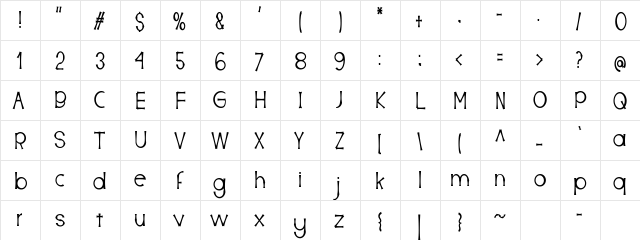
NEVALEX Regular
| Designer | Raafi Hilmi |
Design Context for NEVALEX Typeface
NEVALEX takes a measured approach to typography — its balanced proportions and neutral character make it a reliable workhorse for both digital and print work.